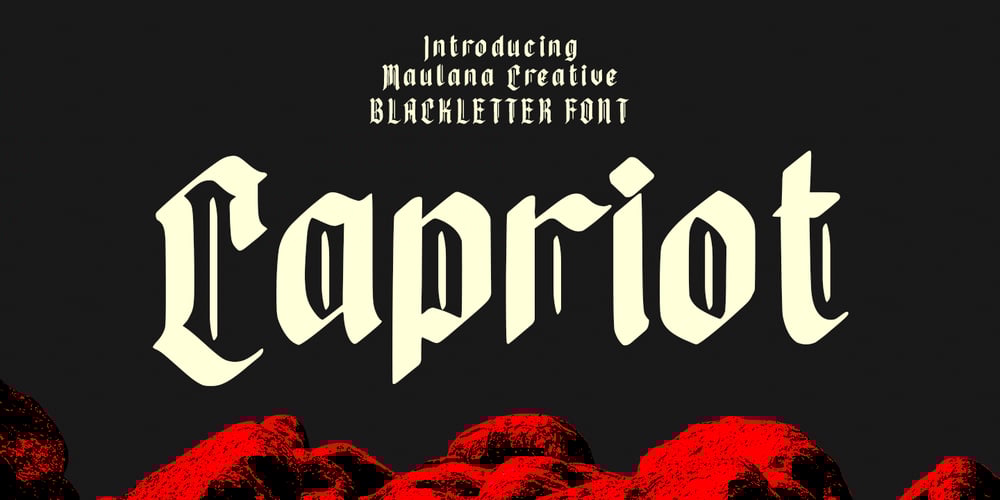
Capriot Font Family was designed by Gilang Maulana and published by Maulana Creative. Capriot contains 1 styles and family package options. Capriot is modern blackletter font. With medium low contrast stroke, fun character with a bit of ligatures and alternates. To give you an extra creative work. Capriot font support multilingual more than 100+ language. This font is good for logo design, Social media, Movie Titles, Books Titles, a short text even a long text letter and good for your secondary text font with sans or serif. Make a stunning work with Capriot font. Cheers, Maulana Creative